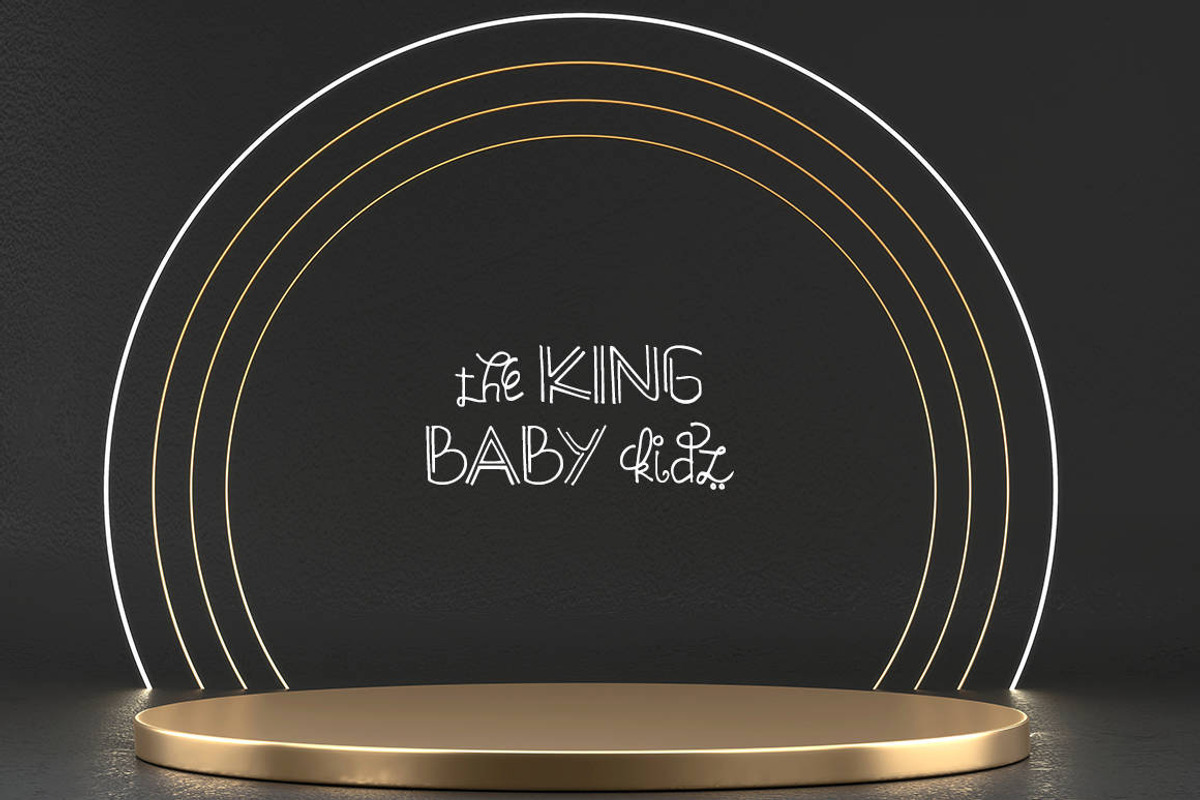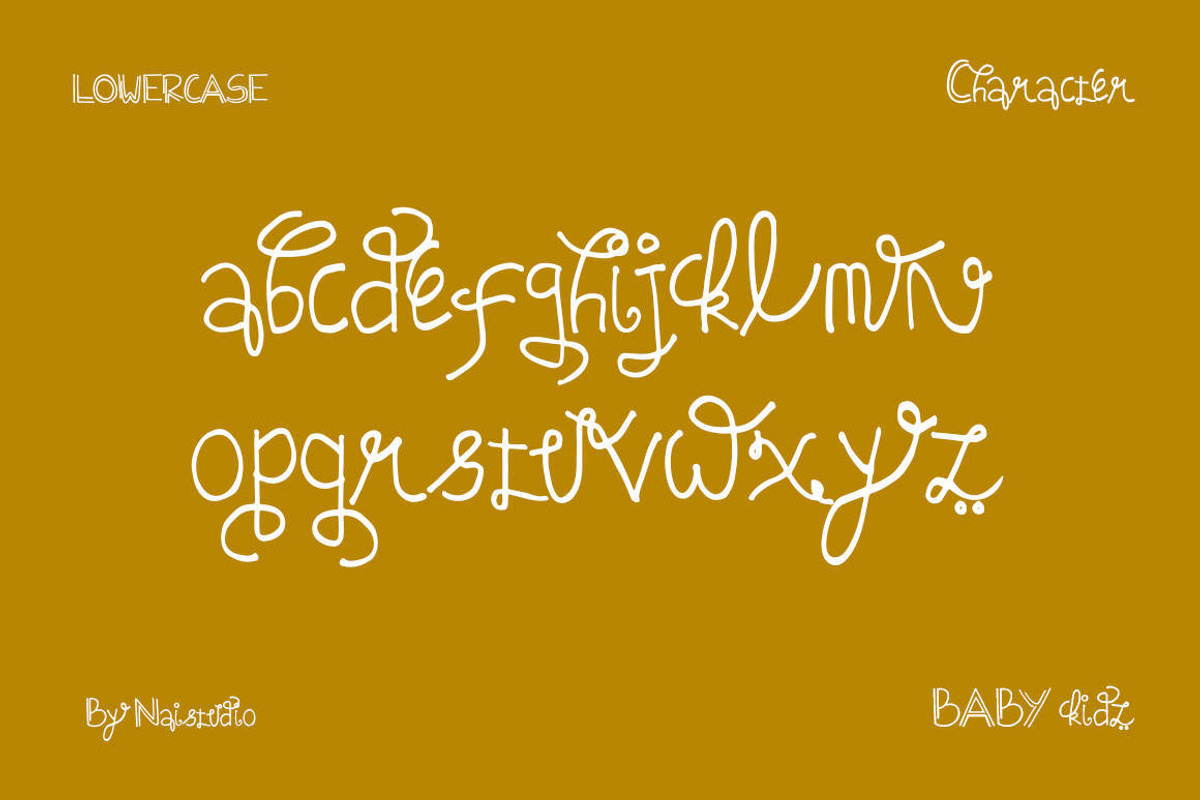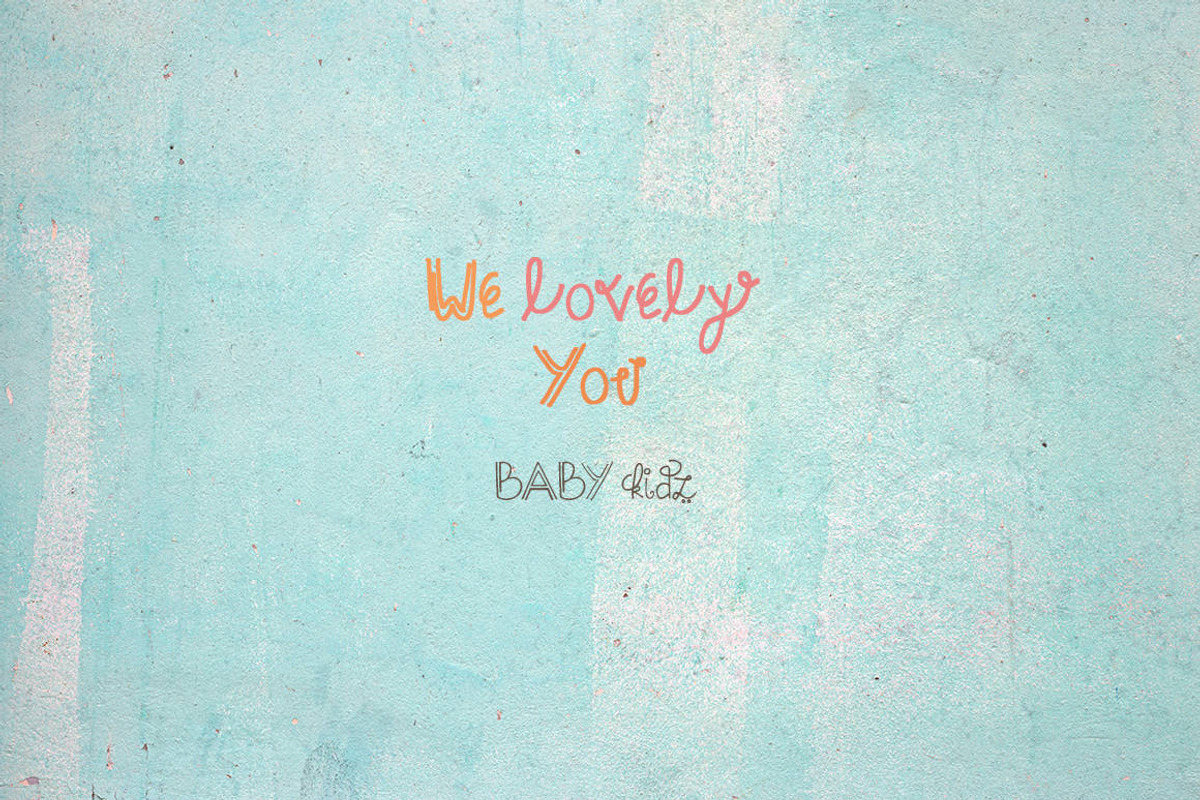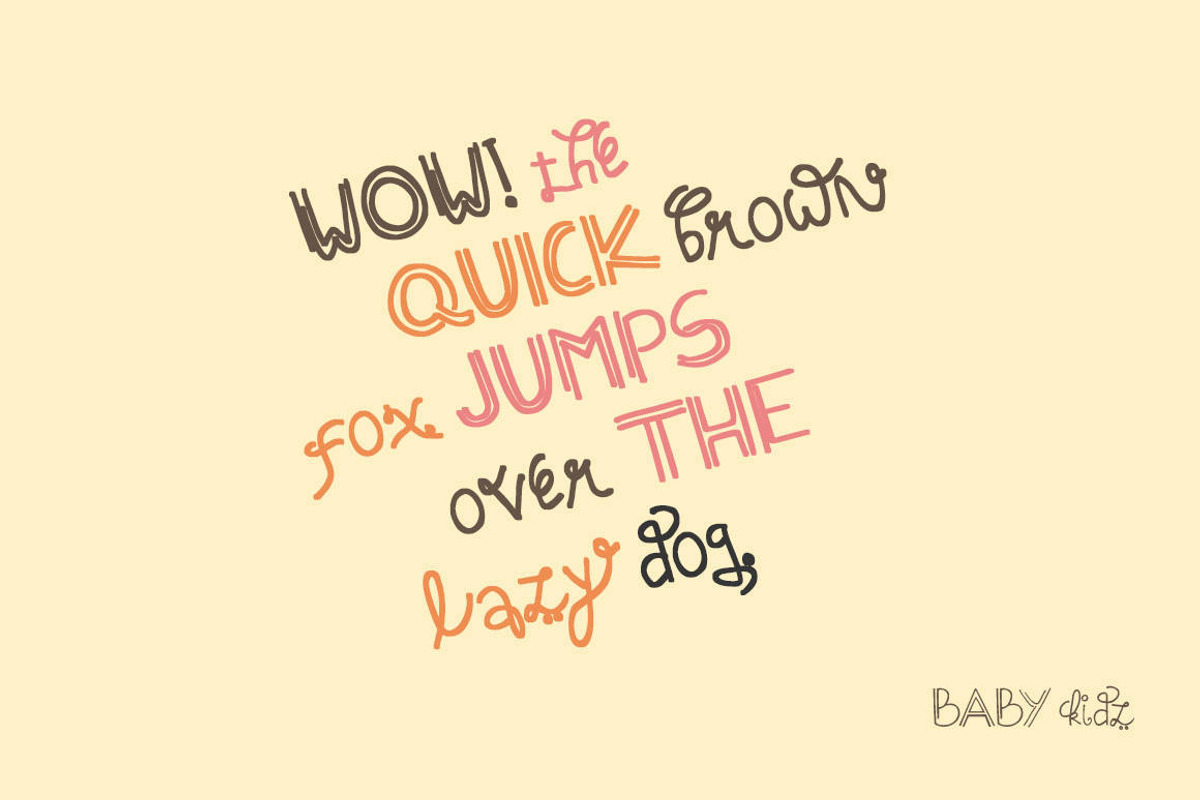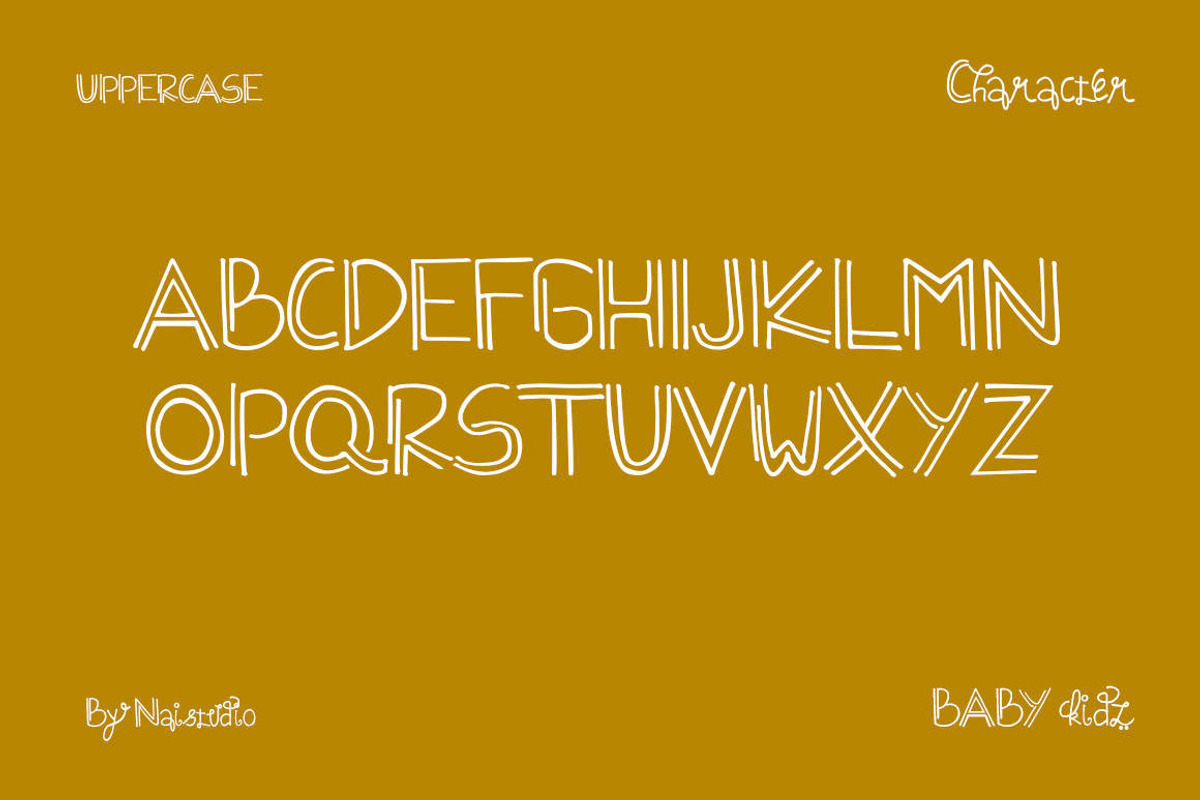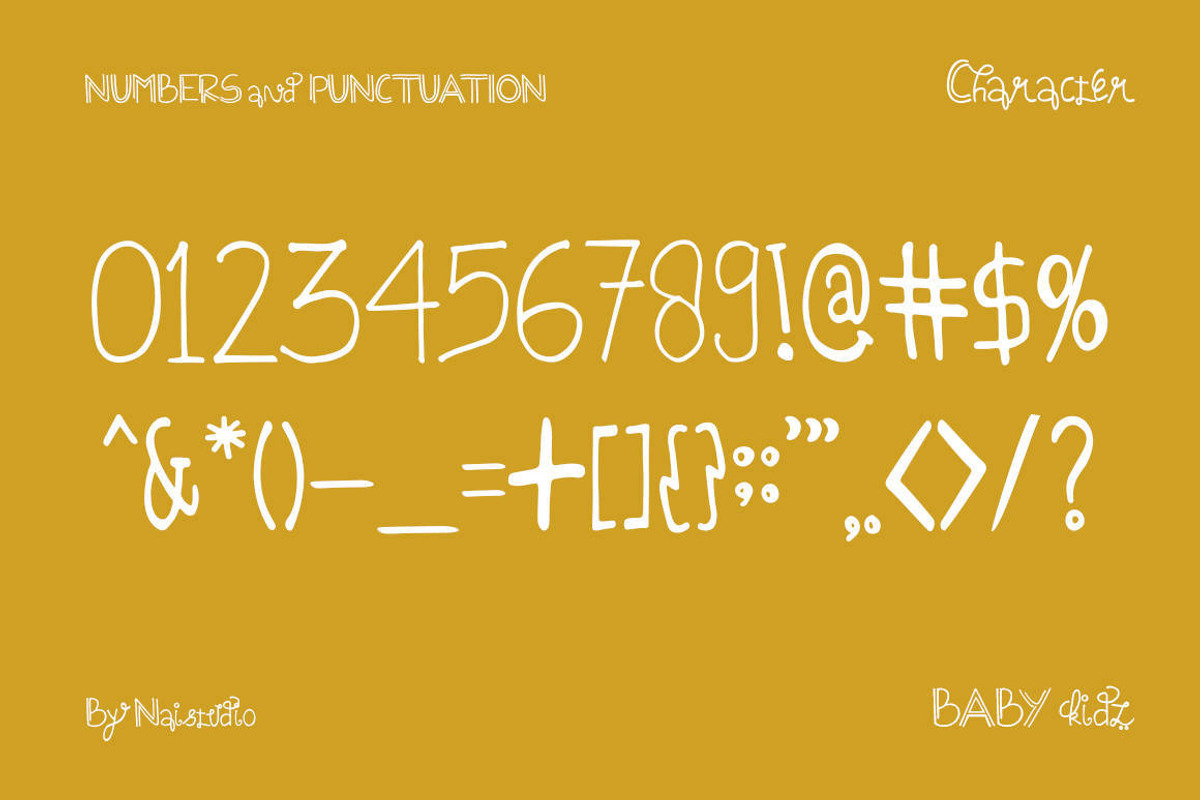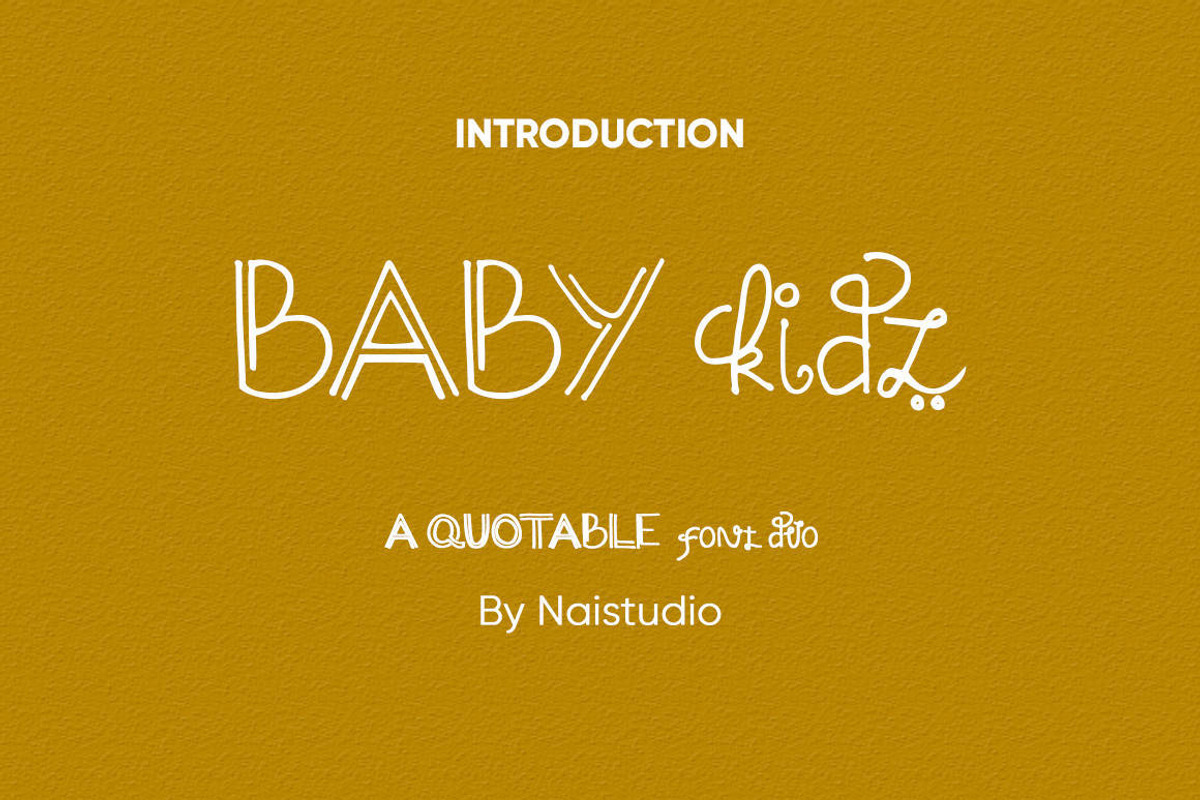
Baby Kidz - Creative Font Duo
Introducing Baby Kidz - Creative Font Duo
Baby Kidz is a delicate, elegant and flowing handwritten font. It has beautiful and well balanced characters and as a result, it matches a wide pool of designs. Add it to your most creative ideas and notice how it makes them come alive!